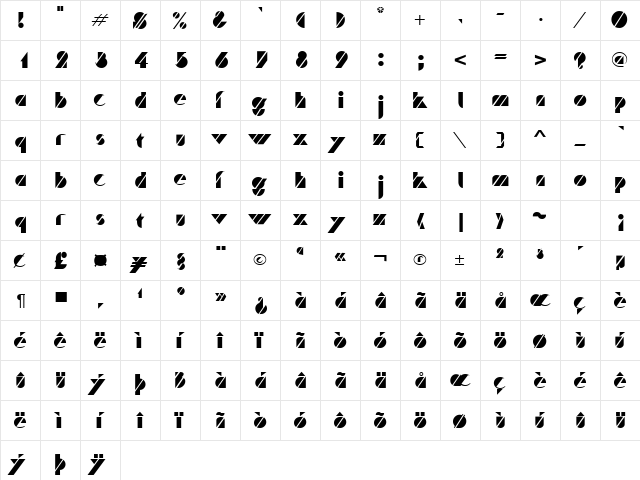
Tarunda Normal
Design Context for Tarunda Typeface
Tarunda is a composed and adaptable typeface that performs quietly and consistently across a wide range of design contexts.